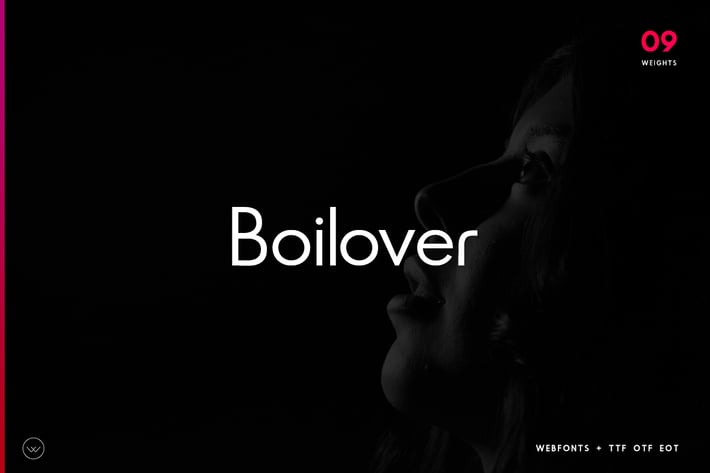
Boilover Unique & Minimal Typeface
Boilover Font Family
Boilover is a modern, clean and Precise font family with "8" weights & Italic.
is perfectly suited for branding, logos, magazines, advertisements, website, headlines, titles, captions, UIs, games, apps, films, apparel and more.